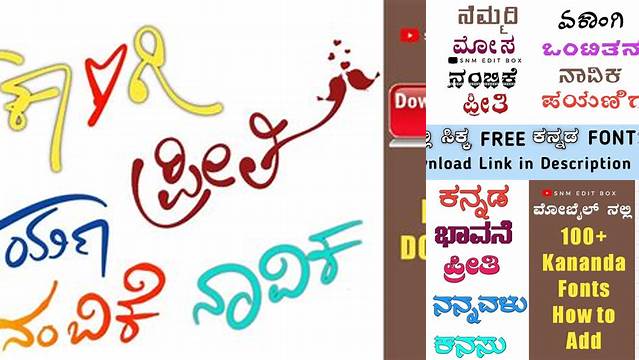
Hey guys! Are you looking to spice up your Microsoft Office documents with some beautiful Kannada fonts? You've come to the right place! In this comprehensive guide, we'll dive deep into the world of Kannada fonts, showing you where to find them, how to download them, and how to install them in MS Office. We'll also explore some popular Kannada font styles and provide tips on using them effectively in your documents. Whether you're creating presentations, writing letters, or designing brochures, having the right Kannada font can make all the difference. So, let's get started and make your documents look awesome!
Why Use Kannada Fonts in MS Office?
Using Kannada fonts in Microsoft Office documents is essential for clear communication and cultural representation. Imagine you're creating a document in Kannada; using the correct font ensures that your message is conveyed accurately and respectfully. It’s not just about readability; it’s about making a connection with your audience. When you use a well-designed Kannada font, you show attention to detail and respect for the language and its readers. This is particularly important in formal documents, educational materials, and creative projects. Moreover, having a variety of Kannada fonts at your disposal allows you to choose the one that best fits the tone and style of your document. A formal report might call for a classic, professional font, while a festive invitation could benefit from a more decorative and playful option. By incorporating Kannada fonts, you enhance the overall aesthetic appeal and effectiveness of your communication. Think of it as choosing the right outfit for an occasion – the font sets the mood and makes the content shine. Plus, using native fonts helps preserve the authenticity of the language and promotes its usage in digital platforms. So, whether you’re a student, a professional, or simply someone who loves the Kannada language, having access to a good collection of Kannada fonts in MS Office is a game-changer.
Popular Kannada Font Styles
When it comes to Kannada fonts, there's a whole world of styles to explore, each with its unique personality and flair. Understanding these styles can help you choose the perfect font for your project, whether it's a formal document, a creative design, or a casual invitation. Some popular Kannada font styles include:
- Nudi: Known for its clean and professional look, Nudi is a classic choice for official documents and academic writing. Its readability makes it a go-to font for many users.
- Tunga: Tunga is another widely used font that offers a balanced and elegant appearance. It’s suitable for a variety of applications, from body text to headings.
- Lohit Kannada: If you're looking for a modern and clear font, Lohit Kannada is an excellent option. It's designed for screen readability, making it perfect for digital documents and presentations.
- Kedage: For a touch of traditional charm, Kedage is a great choice. It has a distinct calligraphic style that adds a unique flair to your text.
- Mallige: Mallige offers a more decorative and playful look, making it ideal for invitations, posters, and creative projects.
Each of these fonts brings a different vibe to your work. Think about the message you want to convey and the overall tone of your document when selecting a font. A formal report might benefit from a serious and straightforward font like Nudi or Tunga, while a festive greeting card could shine with the artistic touch of Kedage or Mallige. Experimenting with different Kannada font styles can significantly enhance the visual appeal and impact of your work, so don't be afraid to try them out!